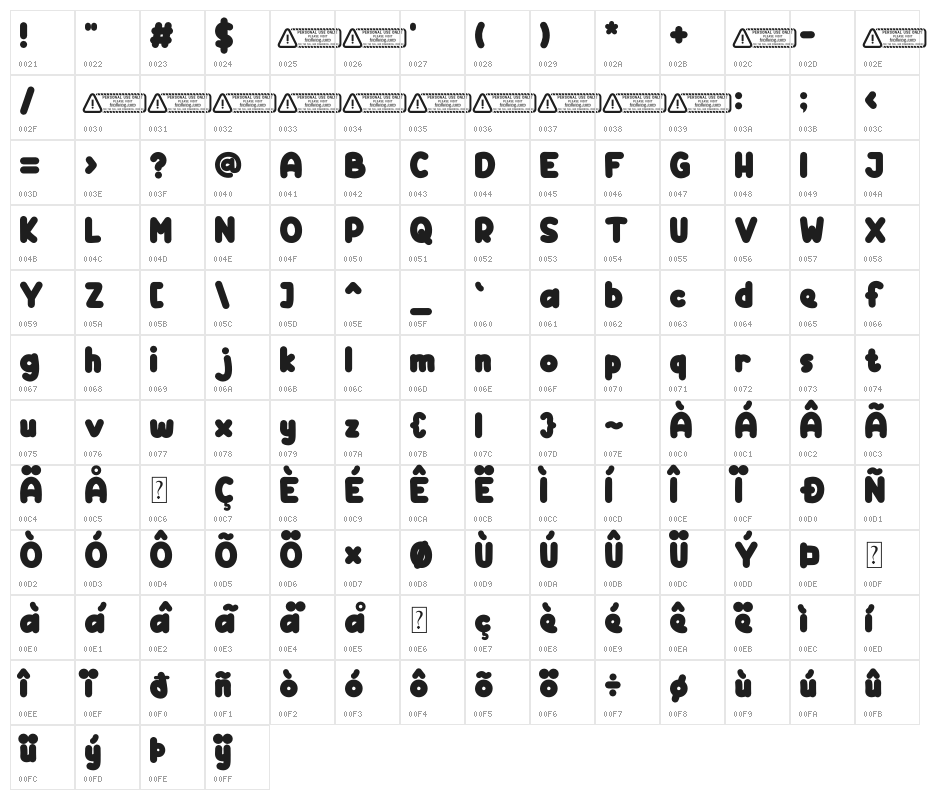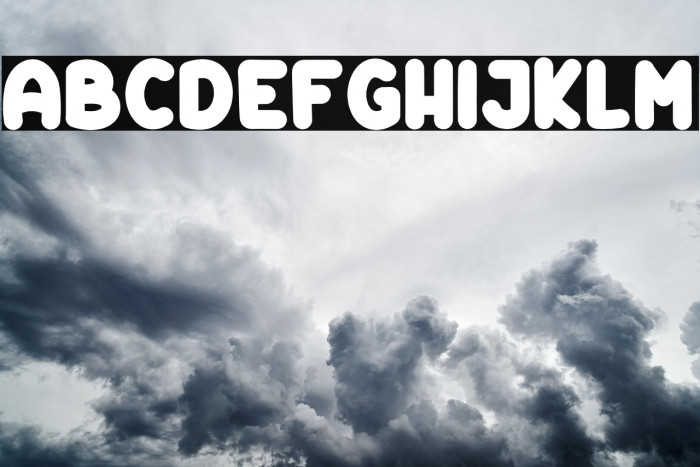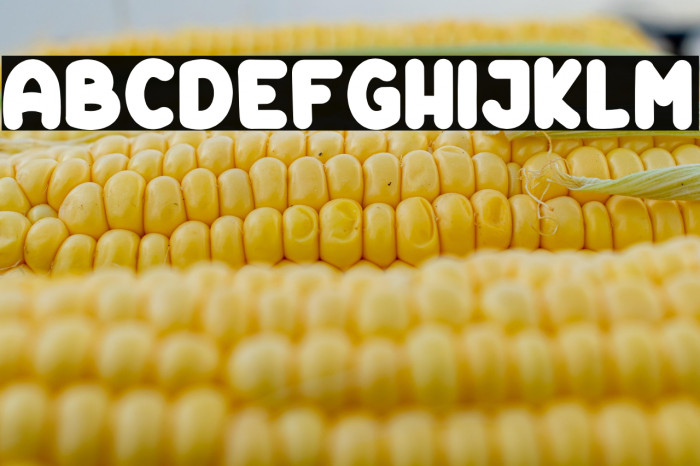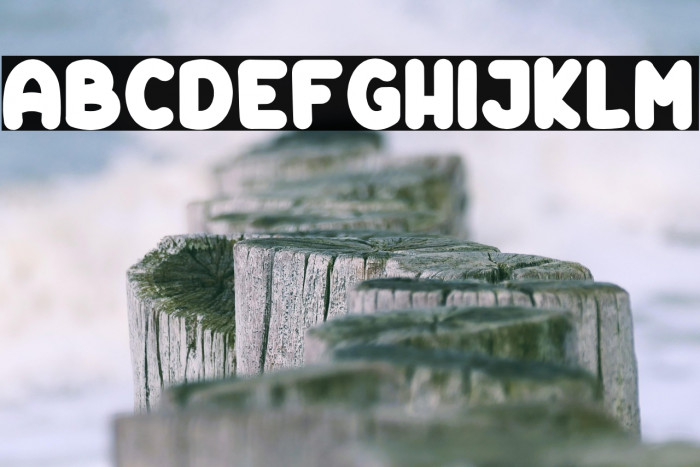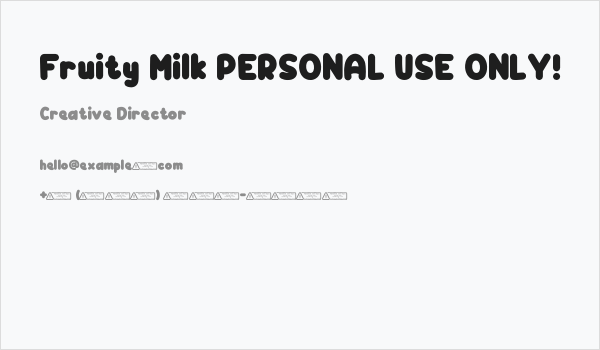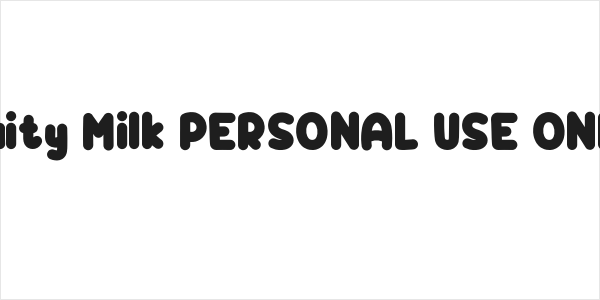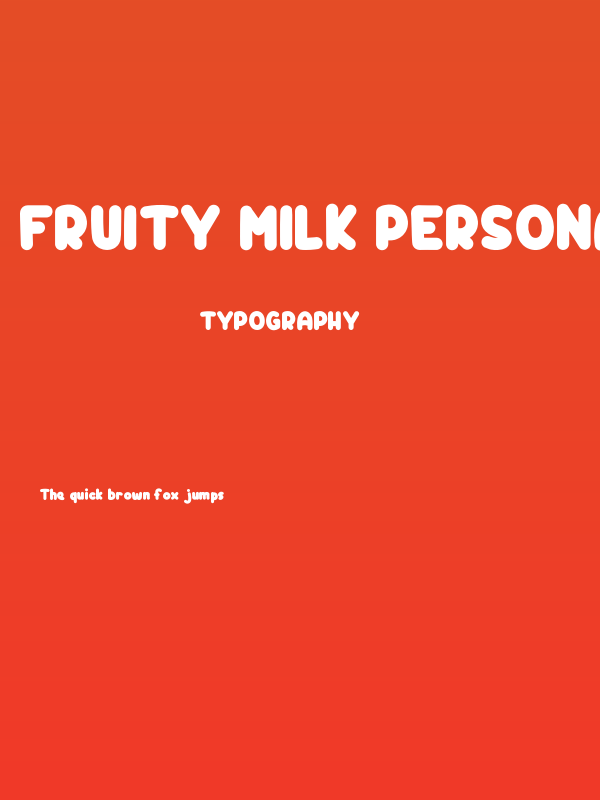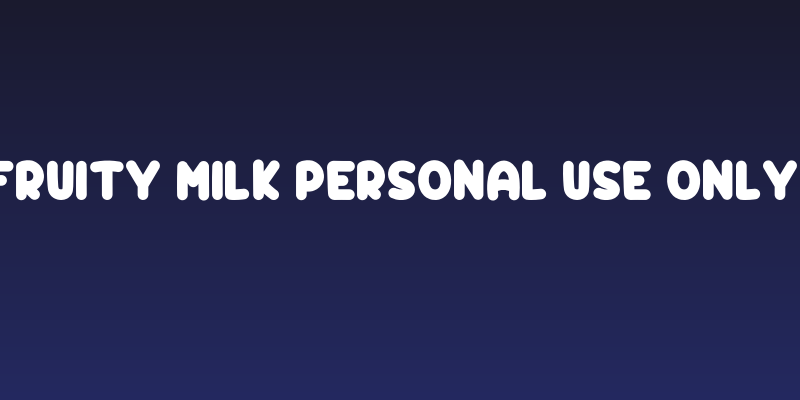
Fruity Milk PERSONAL USE ONLY! Font
Fruity Milk PERSONAL USE ONLY! Description
This playful and bold typeface features rounded, bubbly characters that convey a sense of fun and whimsy. The uppercase and lowercase letters are consistent in their rounded form, creating a cohesive look throughout the alphabet. The numbers and special characters maintain this playful style, making it suitable for creative and informal designs. The thick strokes and lack of sharp edges give it a friendly and approachable appearance. This font is perfect for projects that require a touch of humor and lightheartedness, such as children's books, party invitations, or playful branding.
| Overall Style | Playful, Fun, Whimsical |
| Proposed Projects | Children's books, party invitations, playful branding, posters, and social media graphics. |